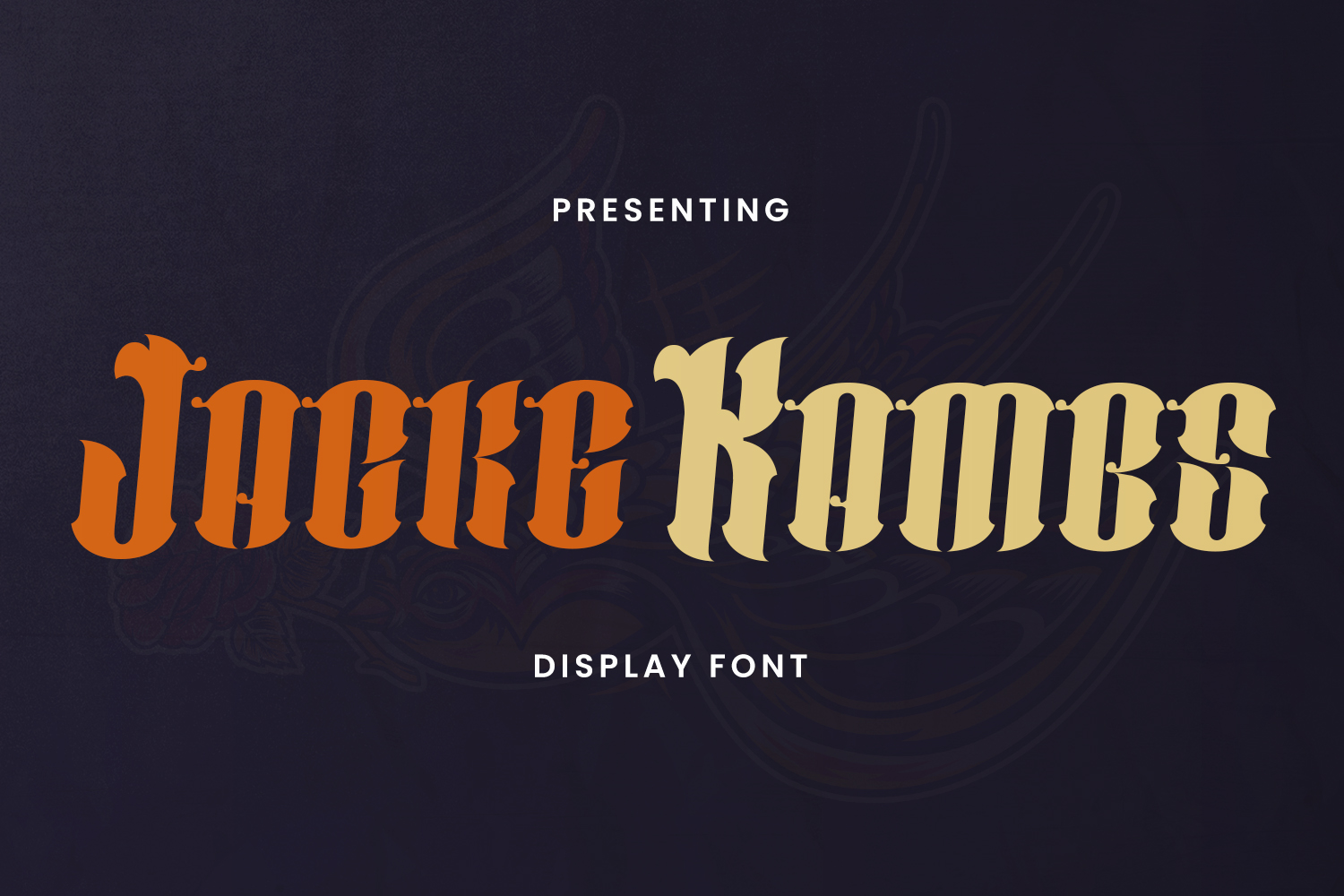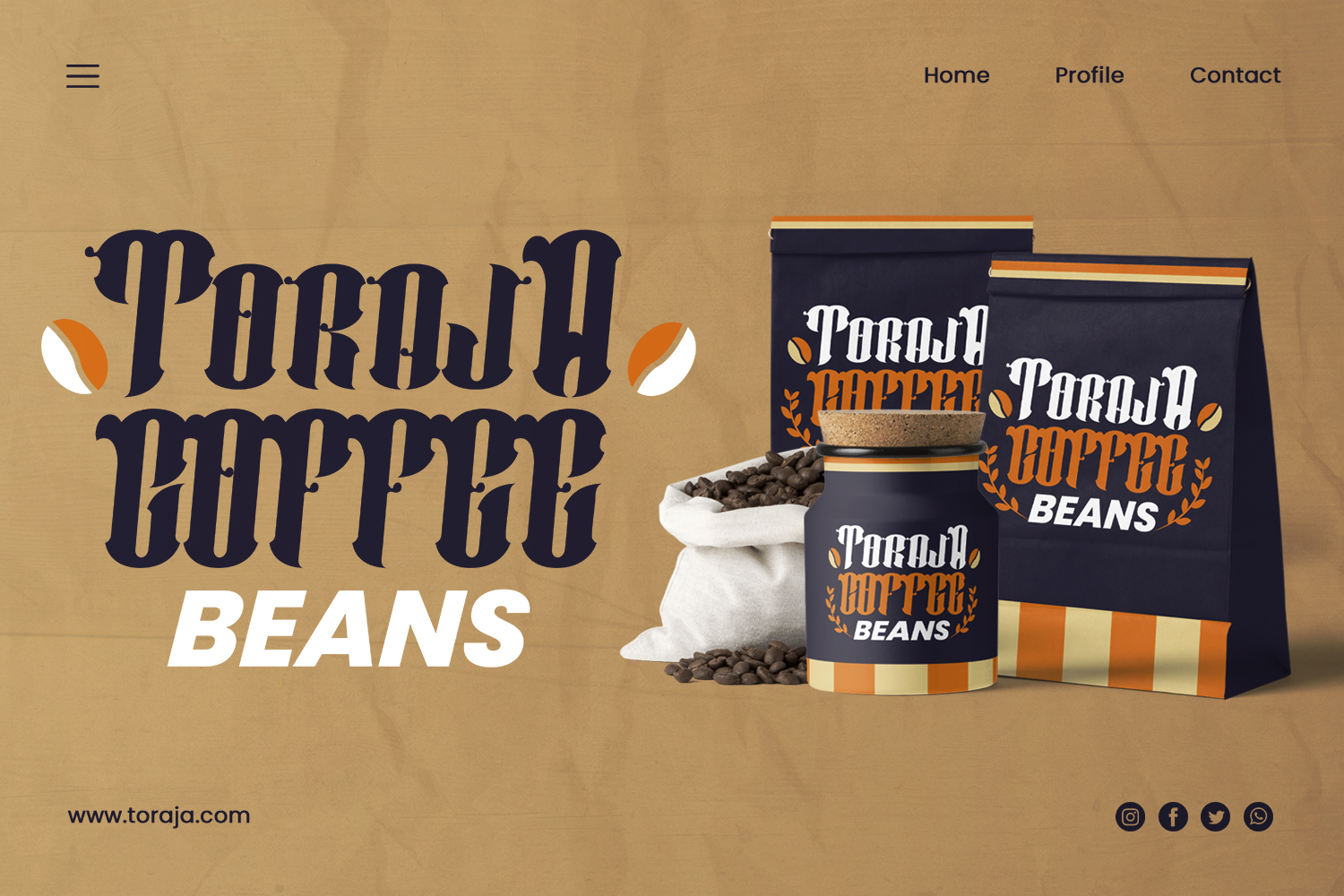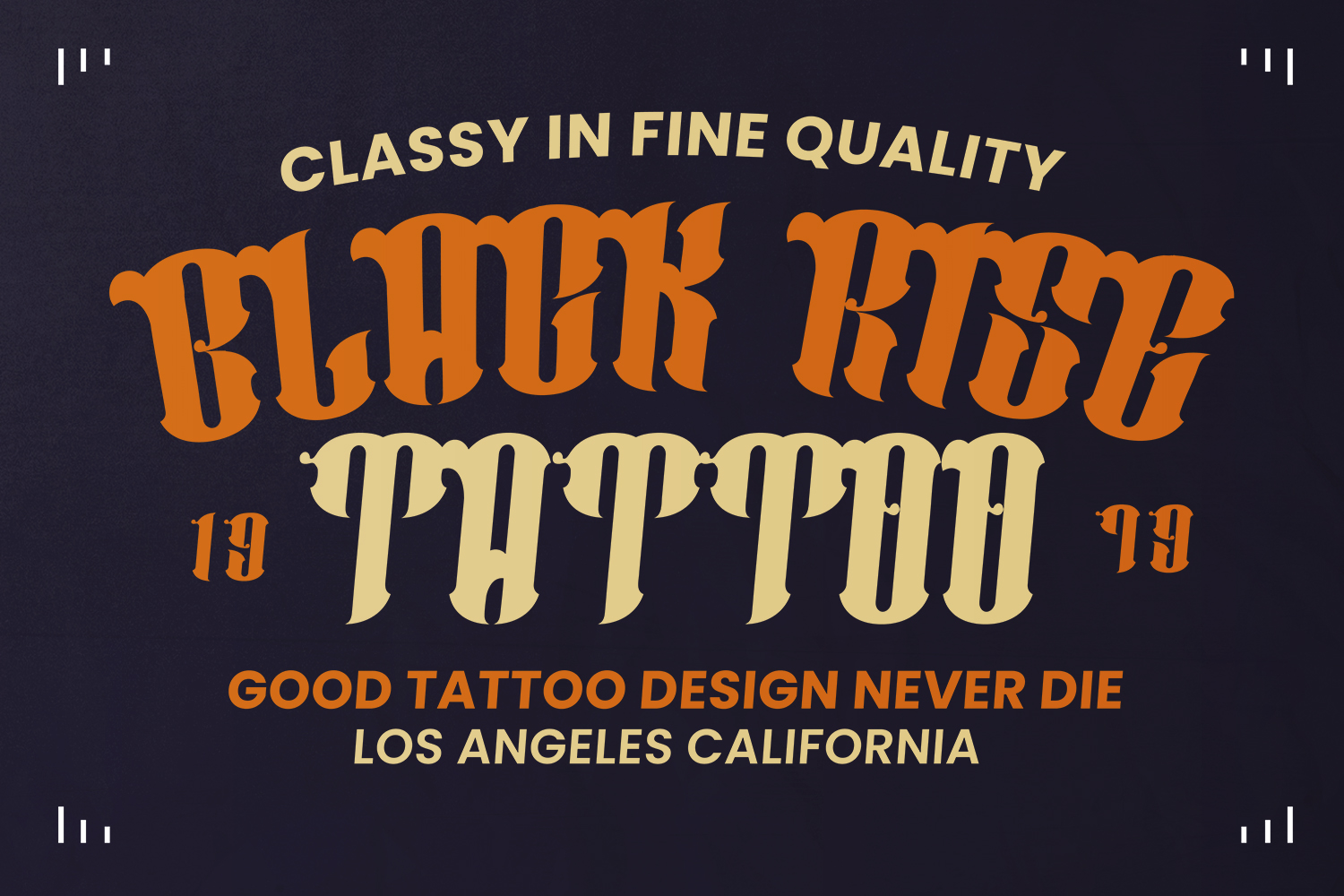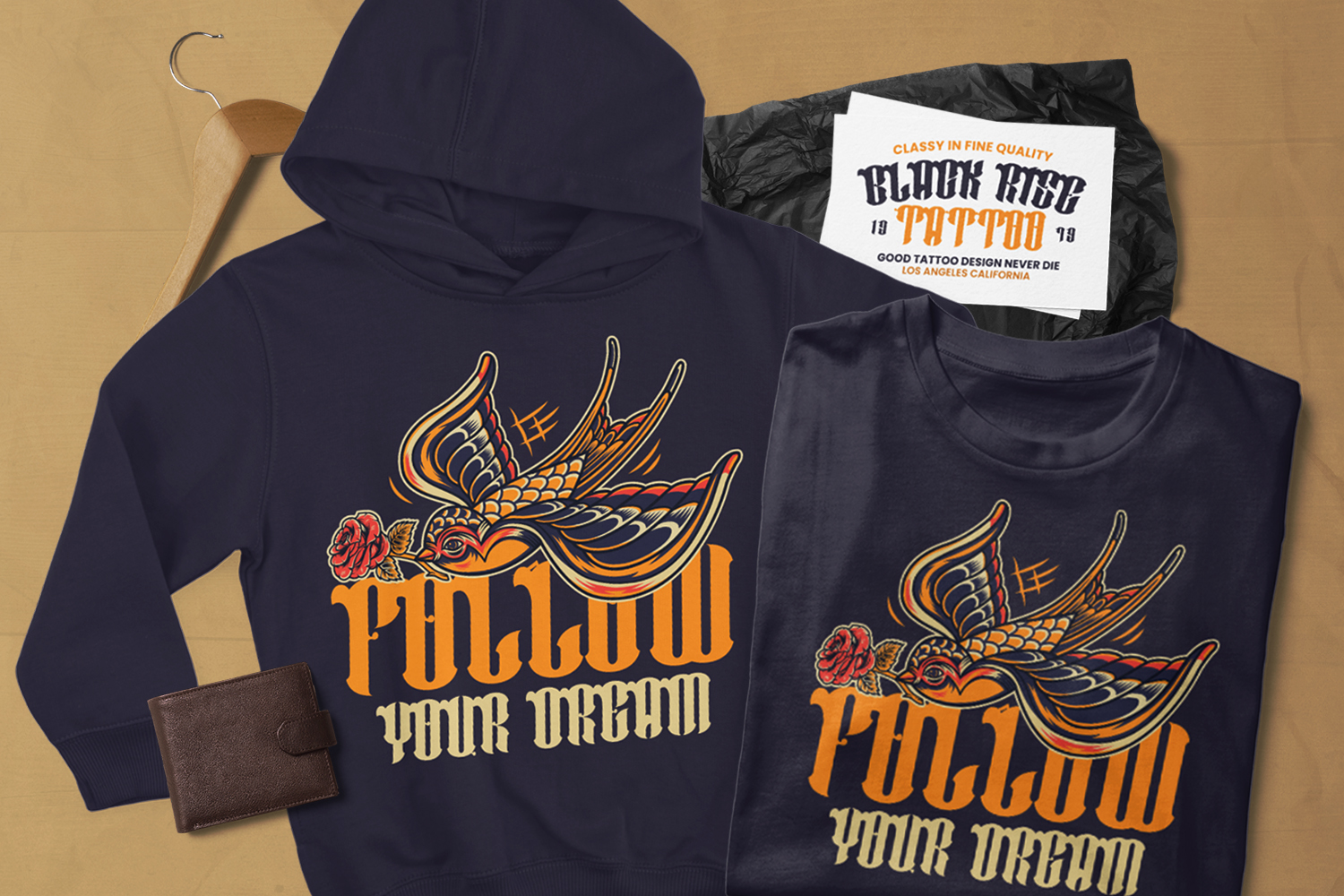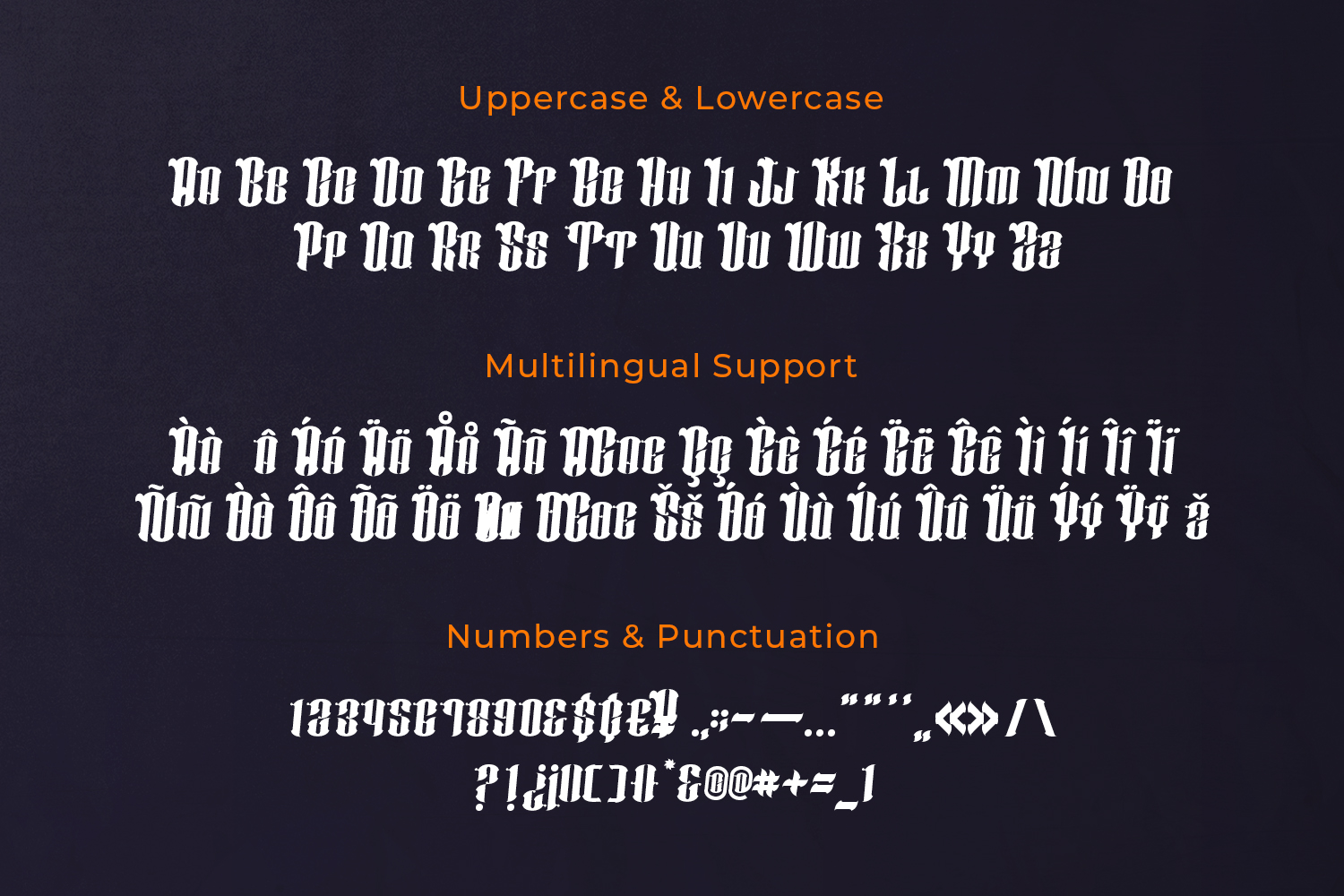
Jacke Kambs is a bold and commanding display font that blends vintage tattoo aesthetics with modern gothic style. Its heavy strokes, ornamental details, and slightly condensed proportions make it ideal for impactful visual storytelling. Whether used in logos, apparel, packaging, or signage, Jacke Kambs adds a strong and expressive character that captures attention instantly.
Equipped with uppercase and lowercase letters, multilingual support, and a complete set of punctuation, this font is highly versatile for various branding and editorial projects. From tattoo studios to streetwear labels and coffee packaging, Jacke Kambs delivers a punch of attitude and flair, perfect for those who want their message to be loud, bold, and unforgettable.